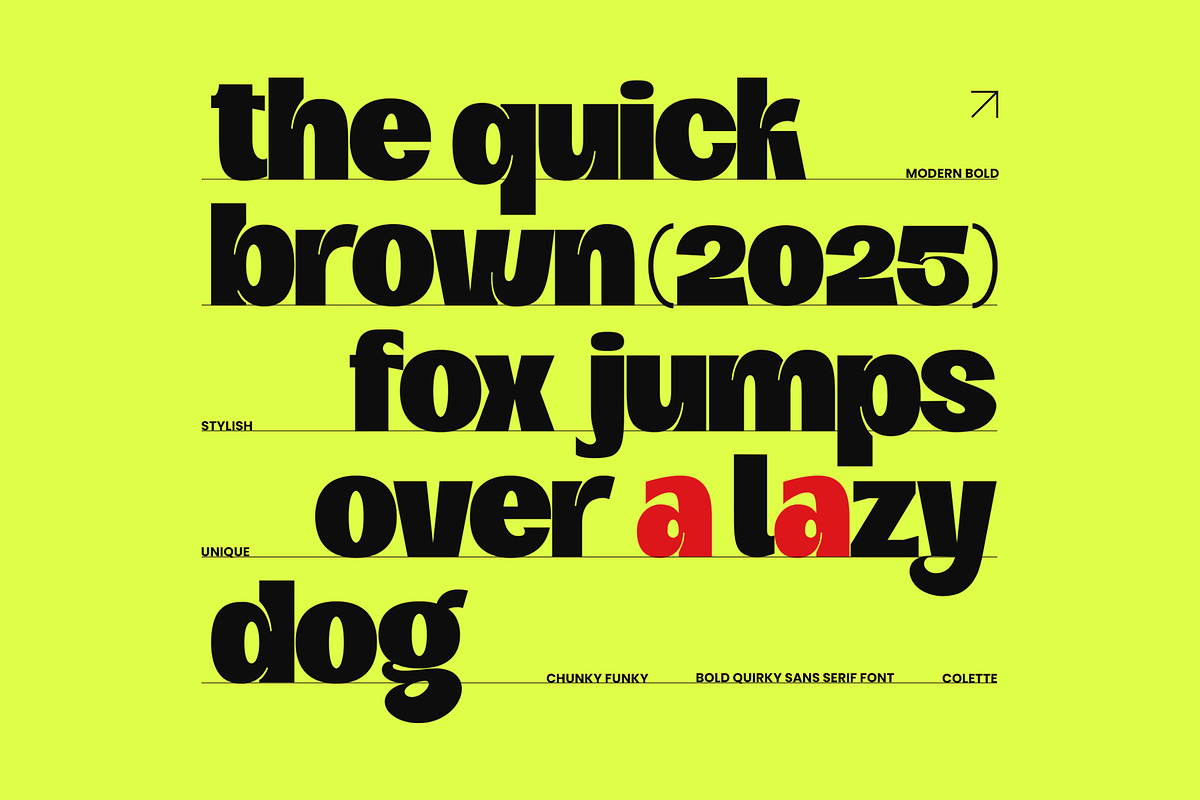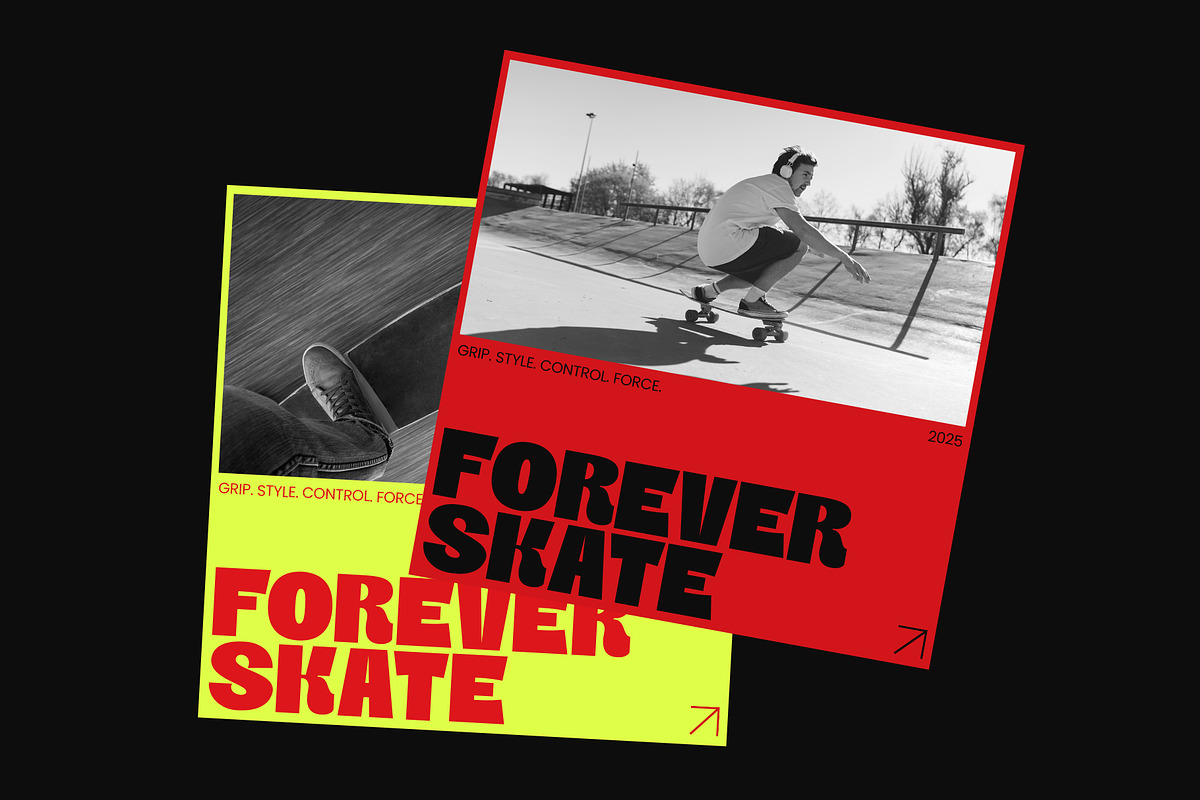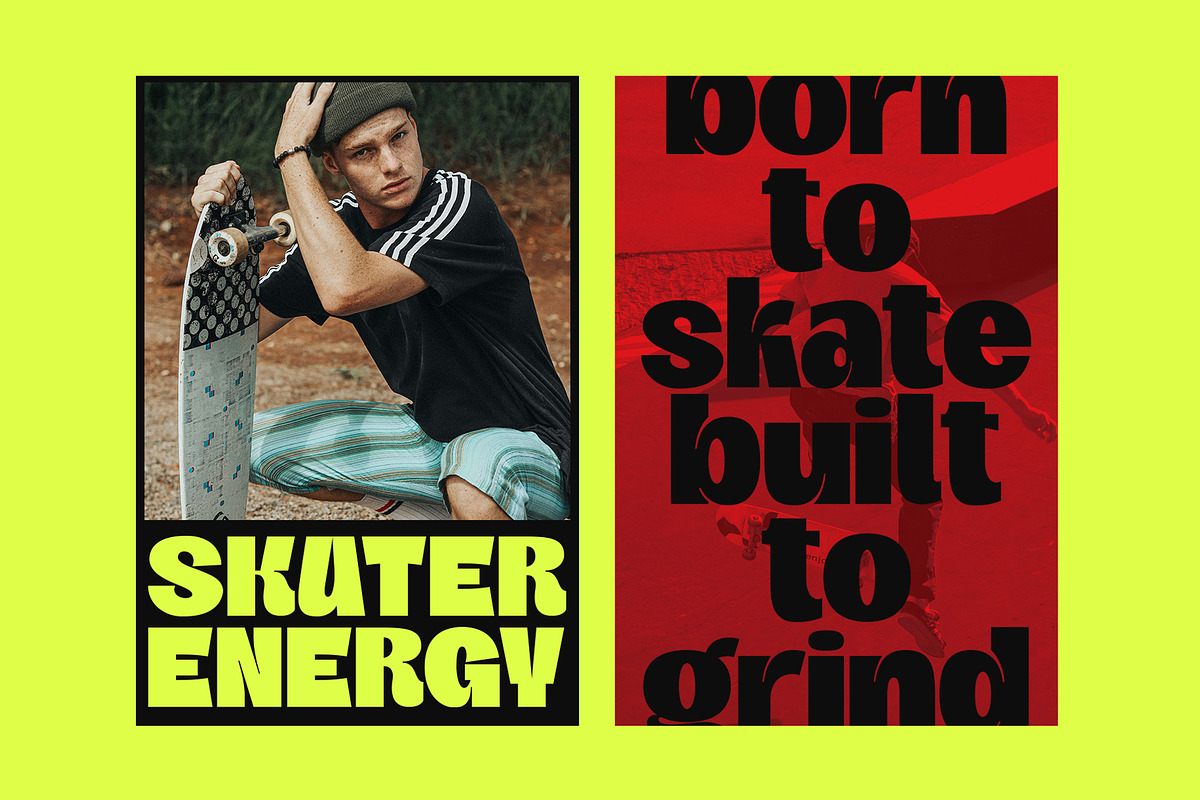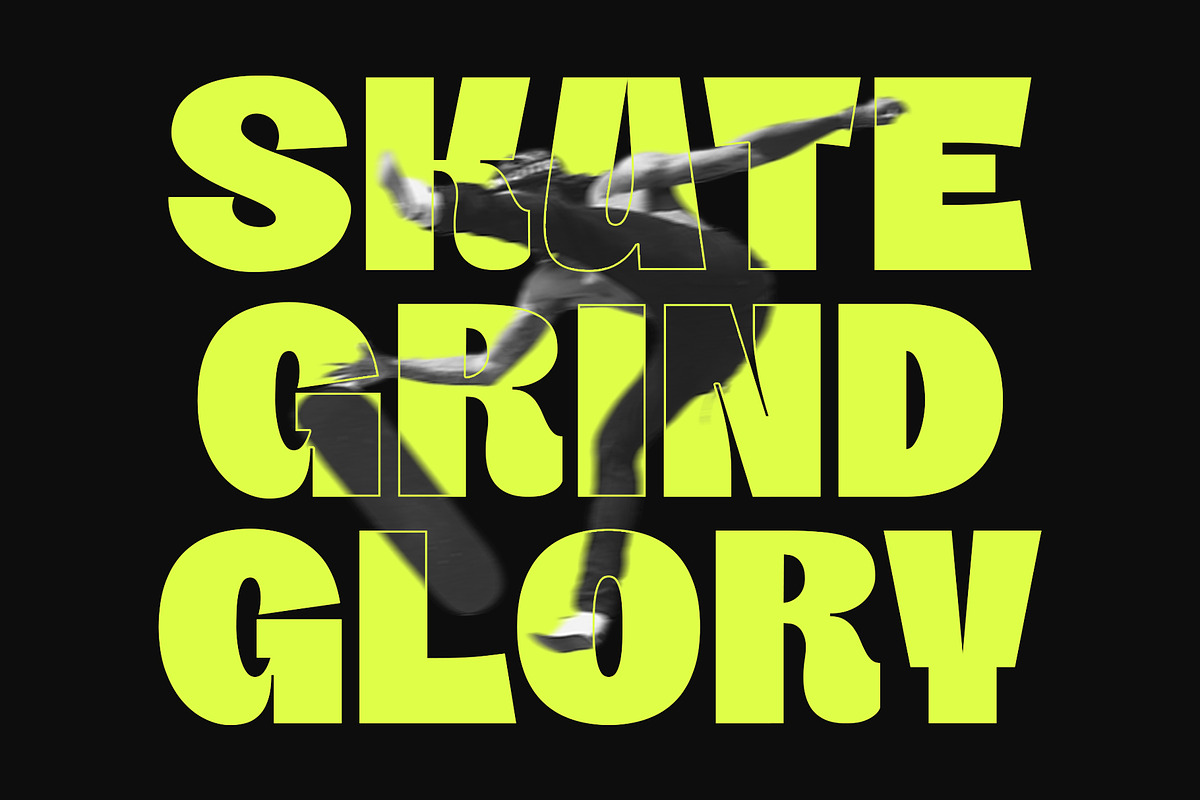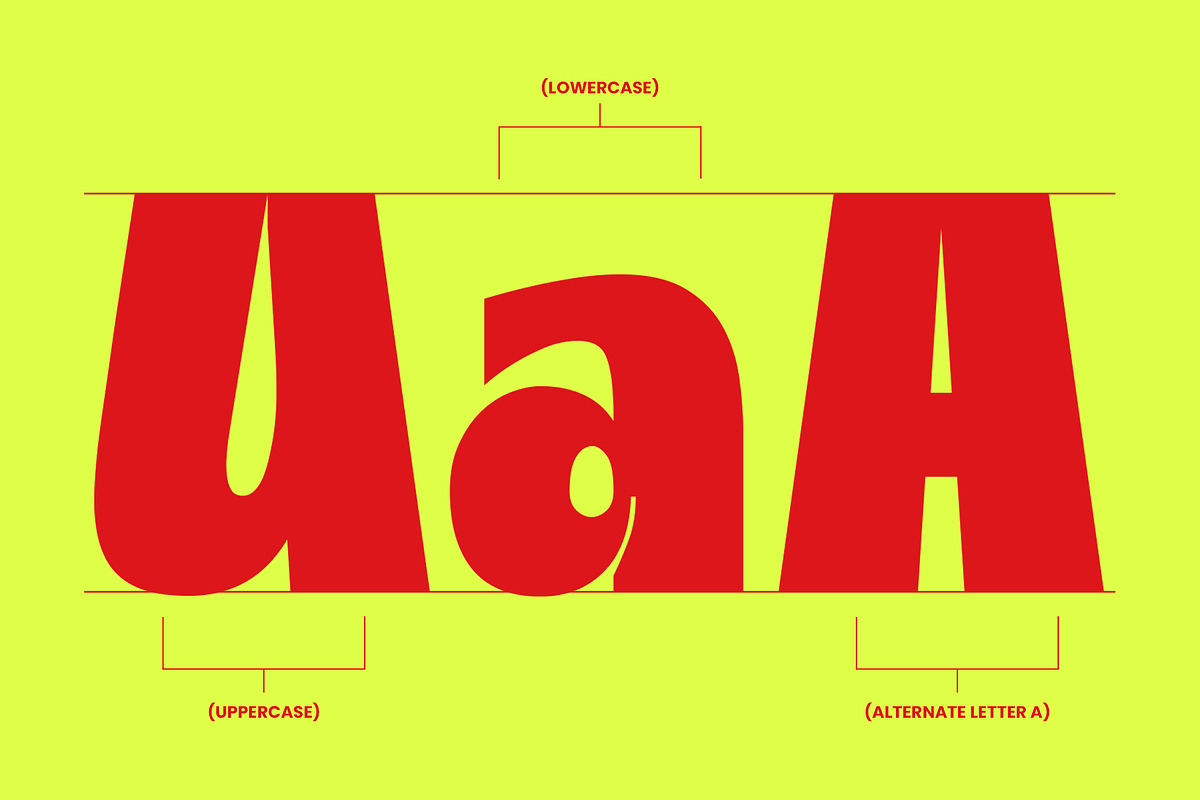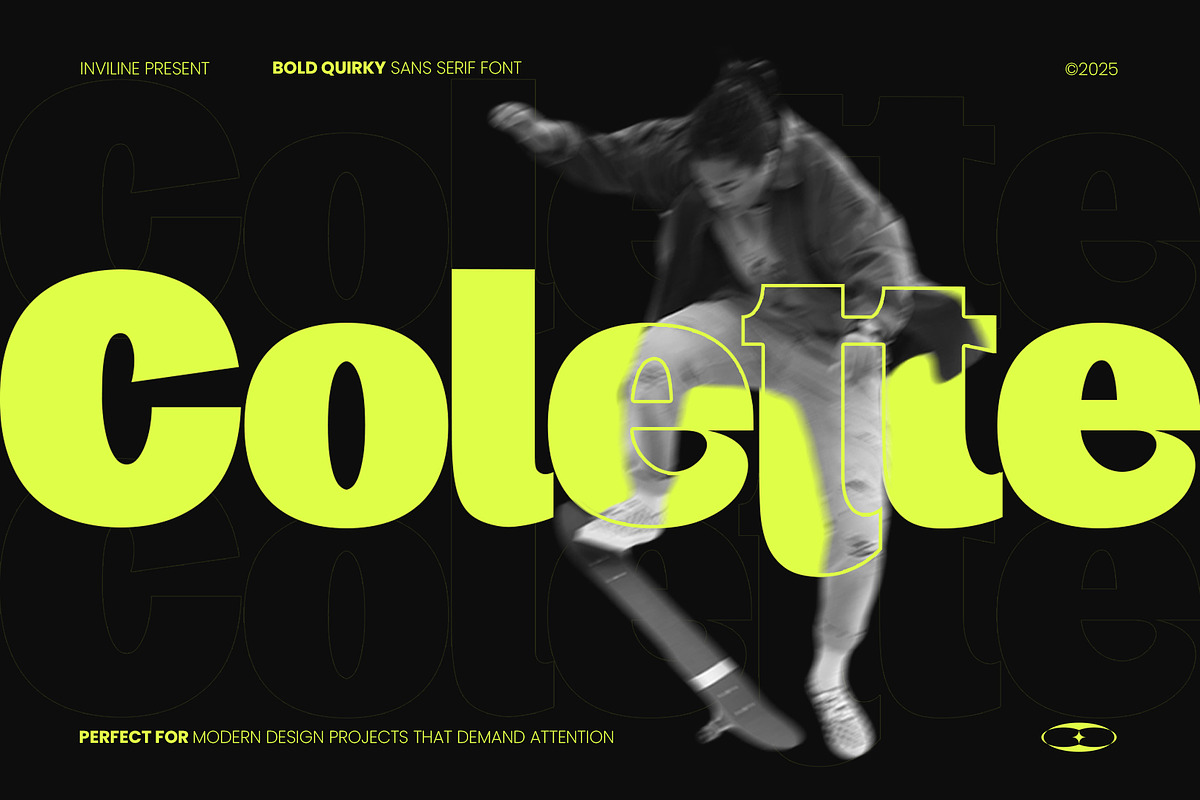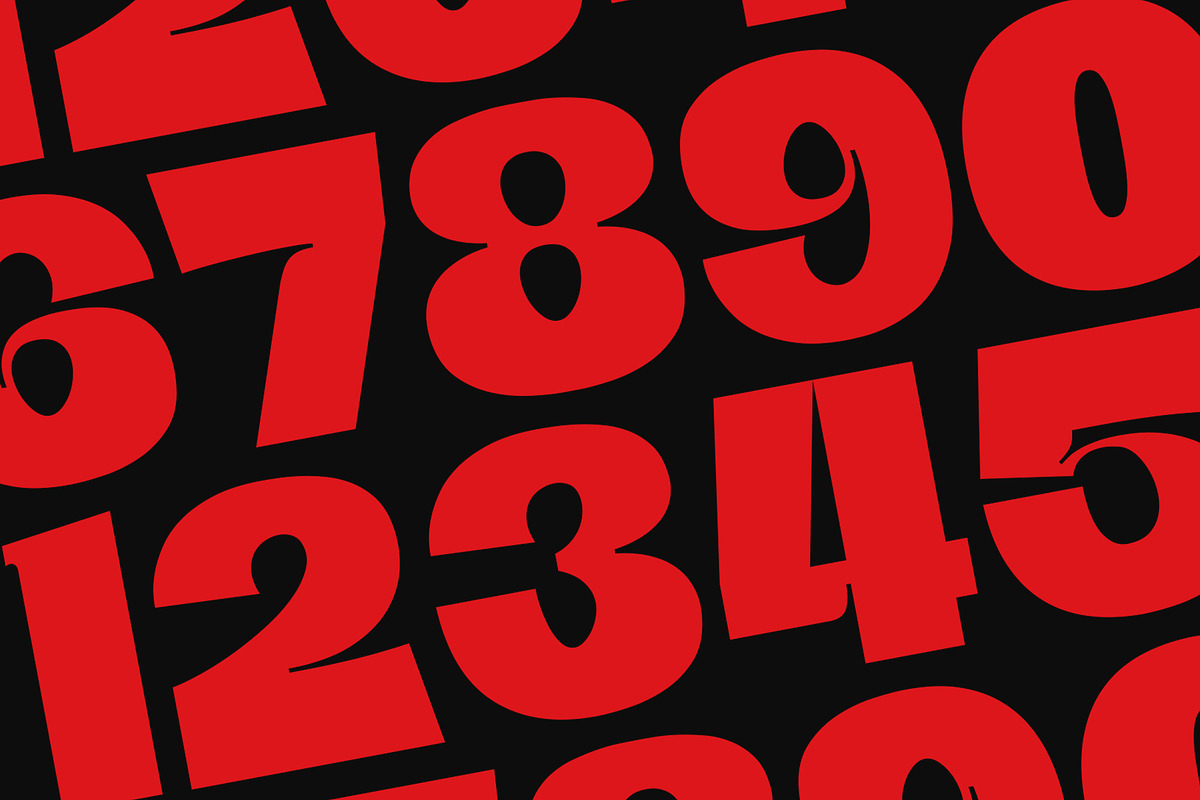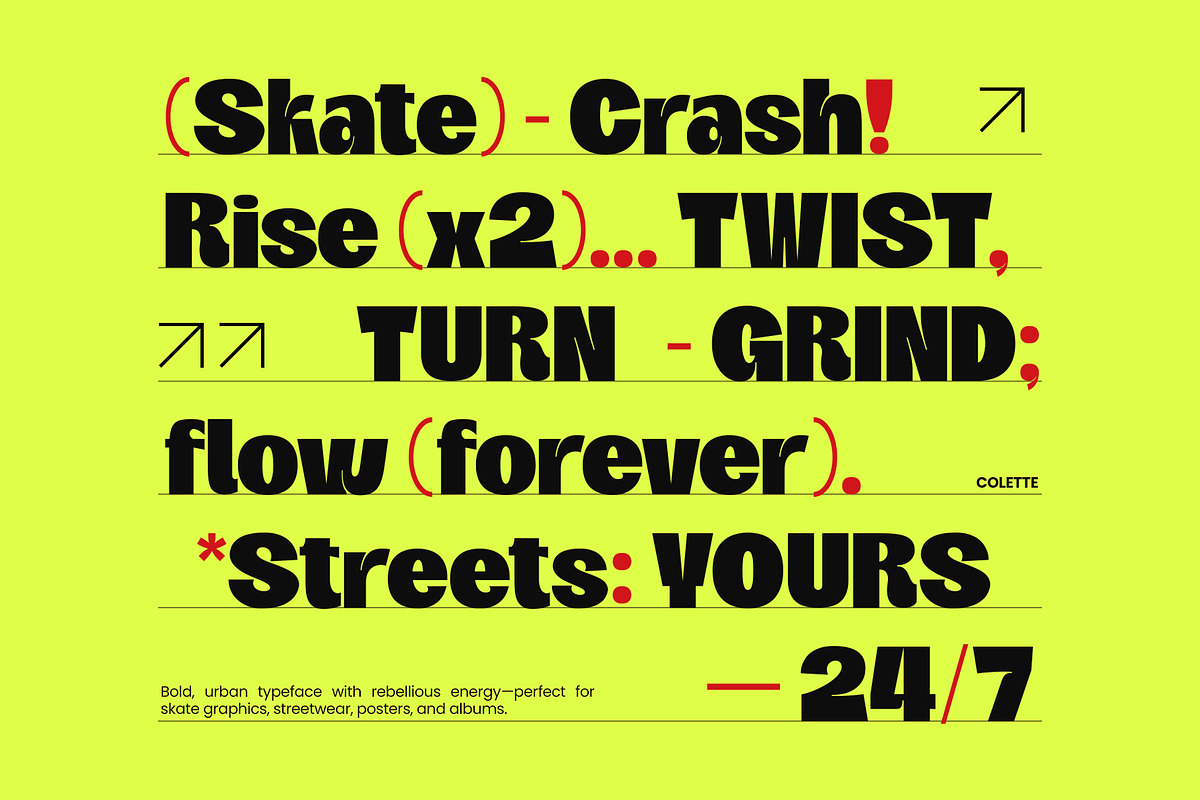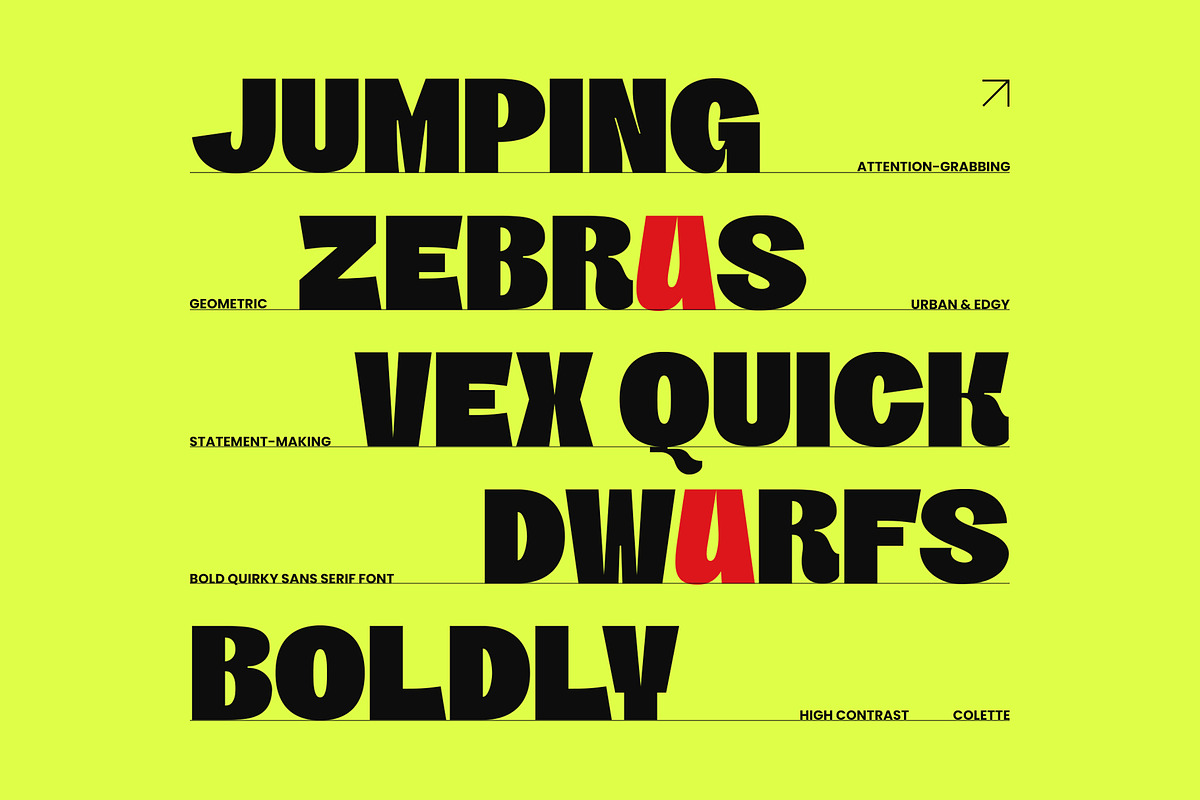
Colette Bold Quirky Sans Serif Font
Colette - Bold Quirky Sans Serif Font
Introducing our Bold Quirky Sans Serif Font—a playful and eye-catching typeface designed to make a statement! Perfect for modern branding, marketing materials, and creative projects, this font combines boldness with a unique twist. Its friendly and unconventional style adds personality to any design, ensuring your message stands out. Whether you're creating posters, logos, or social media graphics, this font is the ideal choice for those who want to leave a lasting impression. Embrace the fun and let your creativity shine with our Bold Quirky Sans Serif Font!
- Uppercase & Lowercase Characters: Fully designed for a complete typographic experience
- Numerals & Punctuation: All the numbers and punctuation marks you need for any design task
- Multilingual Support: Includes characters for multiple languages, ensuring global usability
- High-Quality Design: Each font is crafted with attention to detail, ensuring a polished and professional look